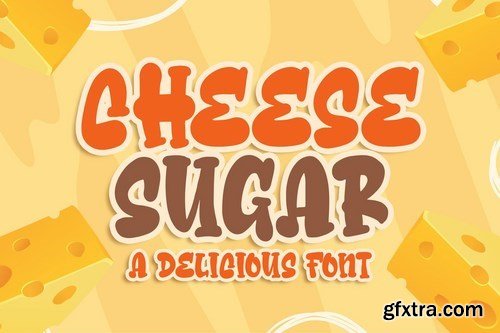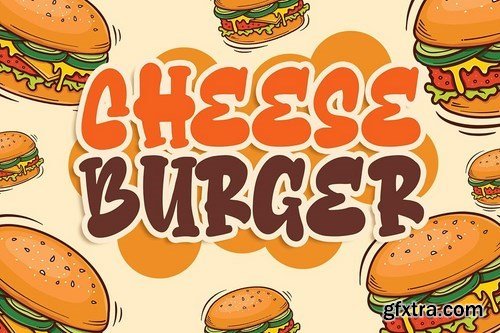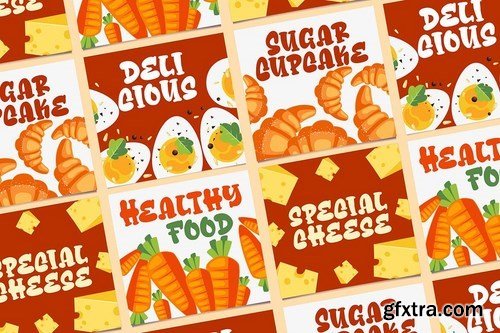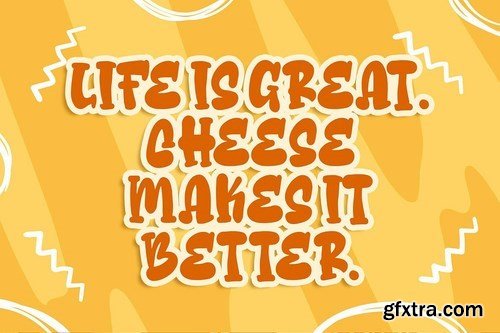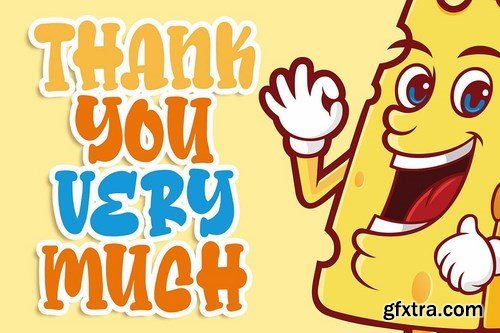
Introducing of our new product the name is Cheese Sugar a Delicious Font inspired by cartoon style with a fun theme very good for birthday invitation, kids poster, food Menu, food poster, craft etc